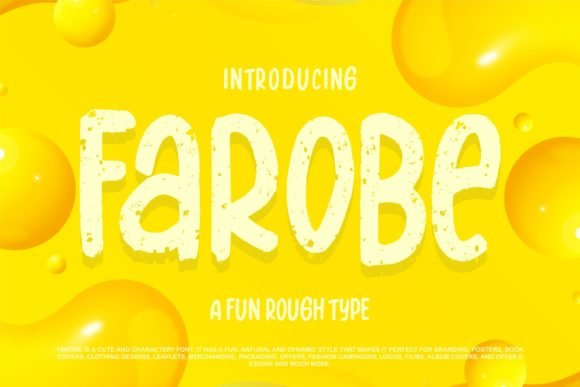
Introduction to Farobe Font
Farobe is a fun and elegant display font with an incredibly rough feel.
Whether you’re looking for fonts for Instagram or calligraphy scripts for DIY projects, this font will turn any creative idea into a true piece of art .
Key Features of Farobe Font
Why Choose Farobe Font?
Farobe Font offers exceptional quality and versatility, making it a valuable addition to your design toolkit. Whether you’re creating for personal projects or commercial use, Farobe Font delivers professional results.